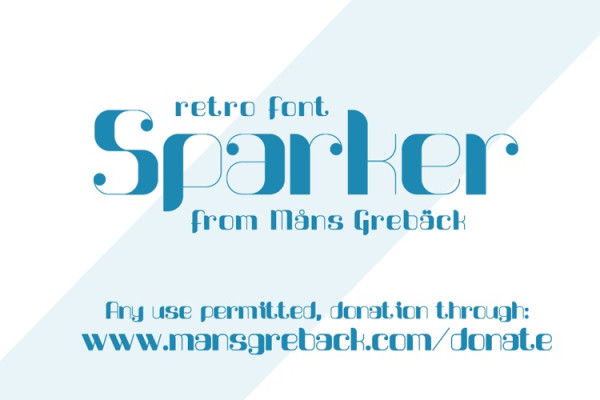
Sparker Font
Sparker Font, Suitable for any design needs : logo, branding, modern advertising design, logos, poster quote, book / cover Title, editorial design, website / blog, card, t-shirts,…